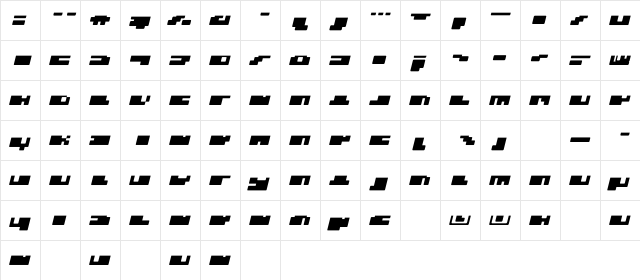
DS PTRLDizel05Plus Regular
Design Context for DS PTRLDizel05Plus Typeface
DS PTRLDizel05Plus is a composed and adaptable typeface that performs quietly and consistently across a wide range of design contexts.
Pro Tip: Use DS PTRLDizel05Plus in both headline and body roles to test its range before committing to a single application.